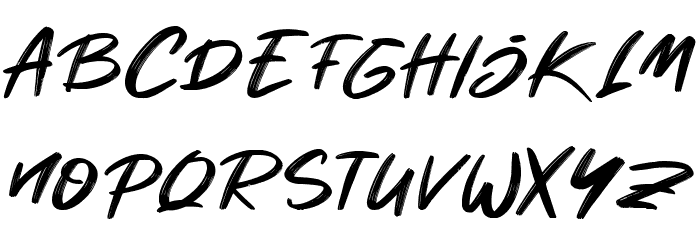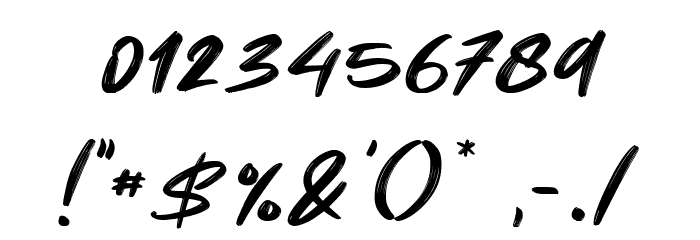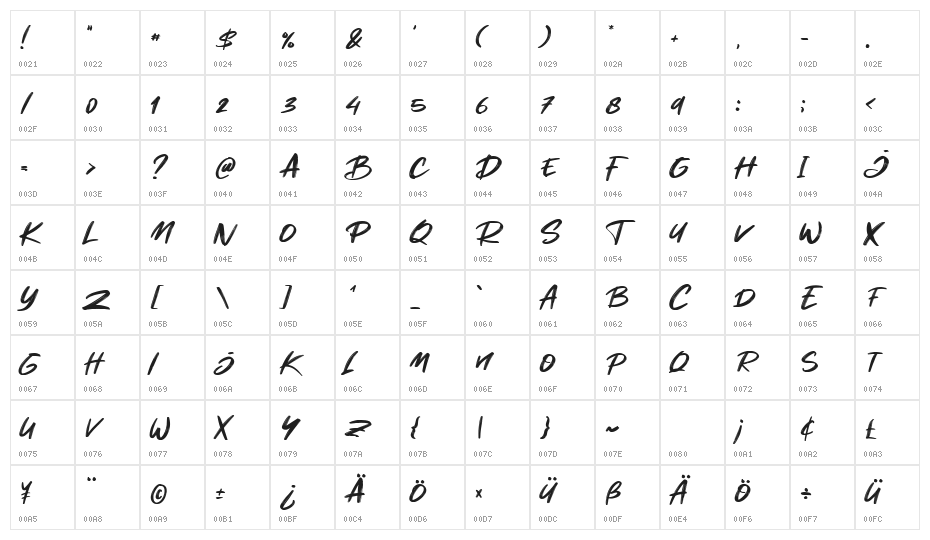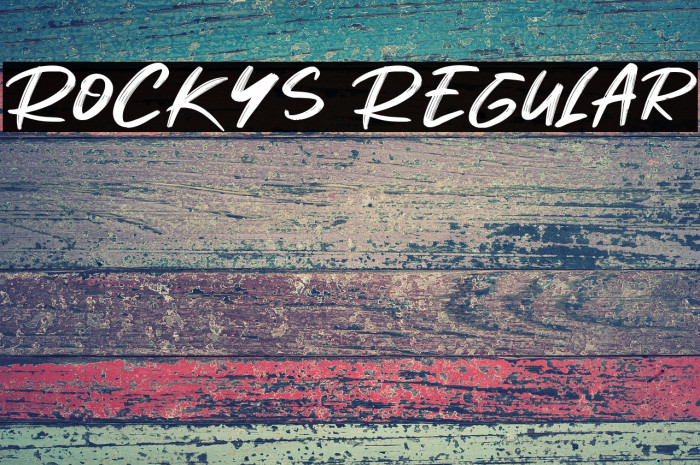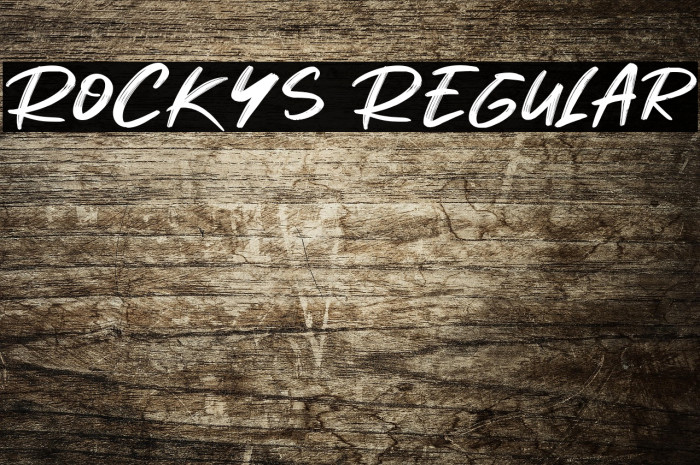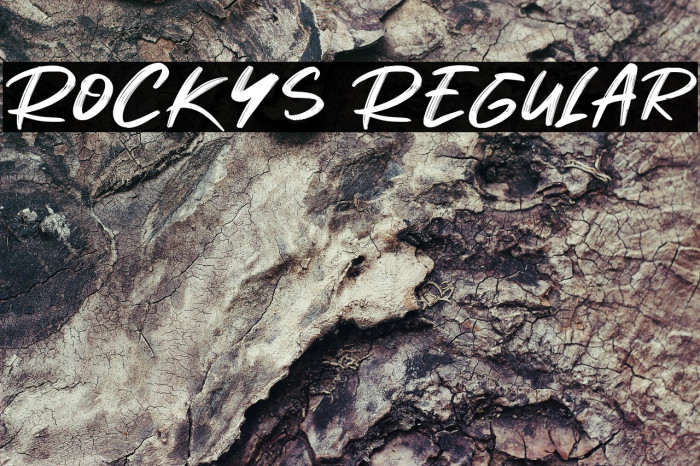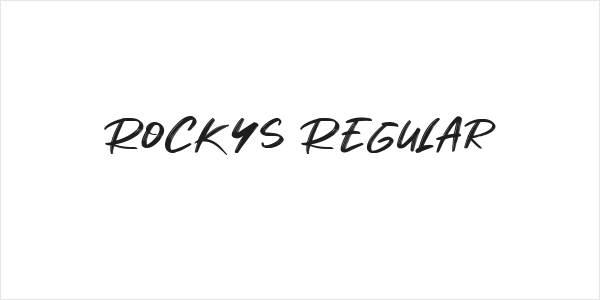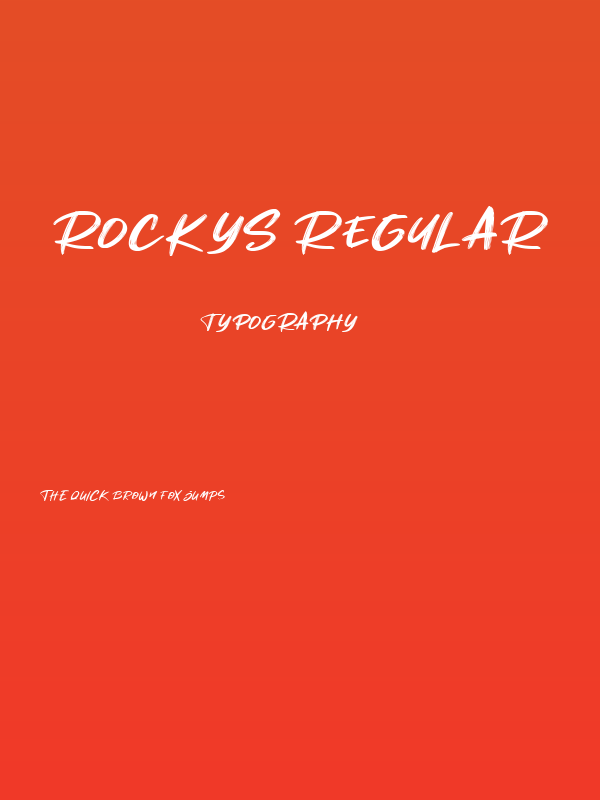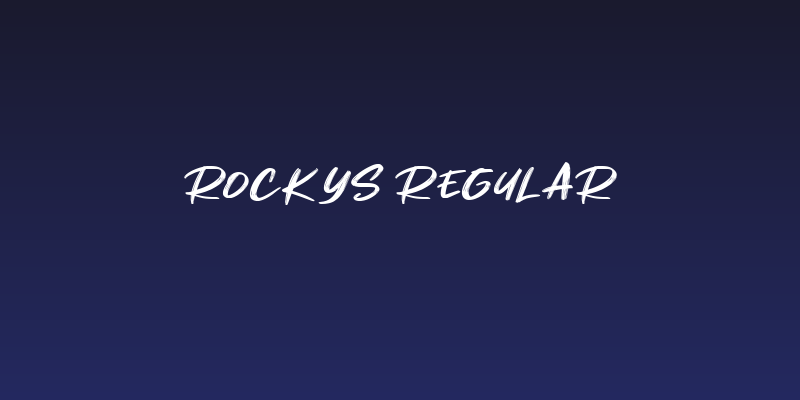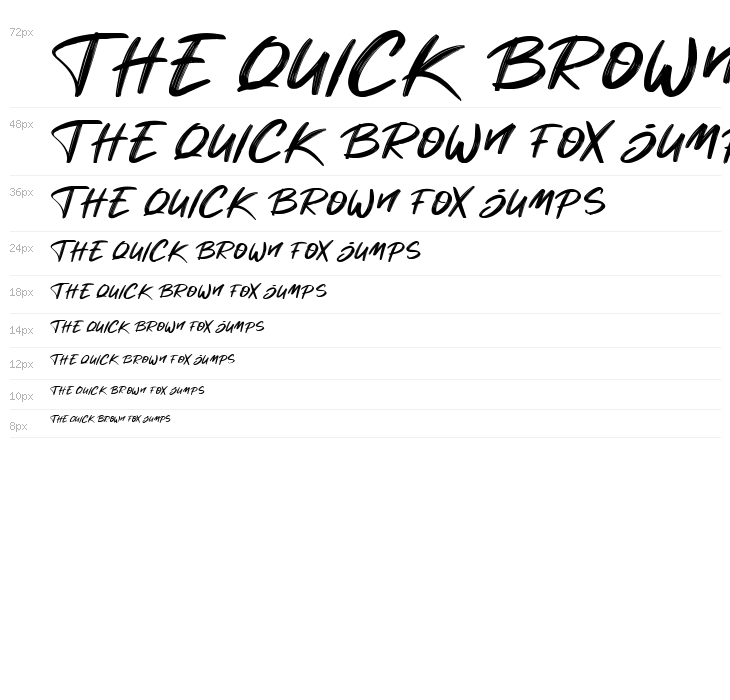
Rockys Regular Font
This font features a bold and dynamic script style with a handwritten appearance. The characters are slightly slanted, giving a sense of motion and energy. The strokes are thick and expressive, with varying widths that add a lively and informal feel. The uppercase and lowercase letters are well-balanced, maintaining readability while showcasing a playful character. The numbers and special characters are consistent with the overall style, ensuring a cohesive look across different uses.
A bold, dynamic script font with a handwritten, energetic style.
- Proposed Projects: Ideal for branding projects, event invitations, posters, and social media graphics where a personal and lively touch is desired.
- Overall Style: Modern, Decorative